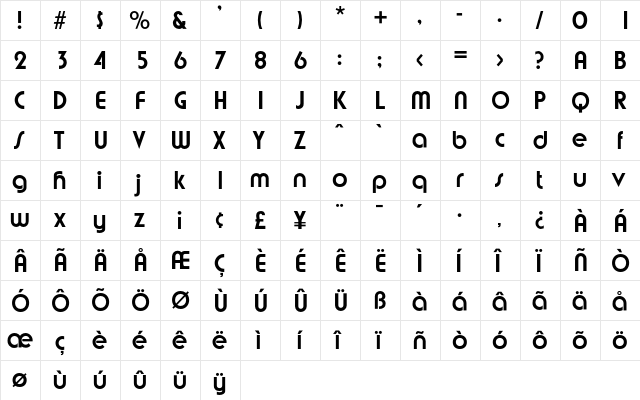
Graphics Regular
Graphics takes a measured approach to typography — its balanced proportions and neutral character make it a reliable workhorse for both digital and print work.